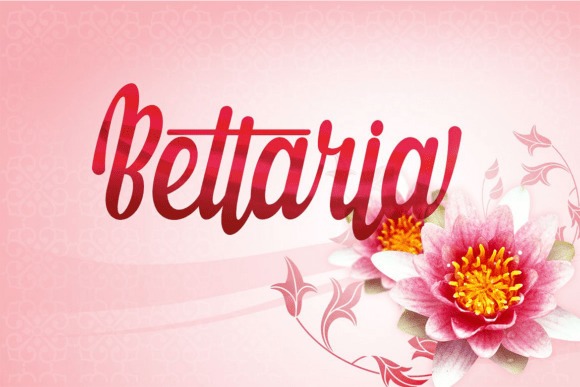
Capture the Essence of Playful Romance with Bettaria Font
I’ll never forget the summer I spent transforming my tiny apartment into a makeshift flower shop. I was working on a branding project for a local florist, and I was determined to get it just right. As I sipped lemonade and surrounded myself with blooms of every color, I realized that the perfect font was the key to bringing the whole design together. That’s when I stumbled upon the Bettaria font – a bouncy and cheerful script typeface that felt like a summer breeze on a warm day.
An Honest Review of Bettaria Font
- ✅ Rounded, thick strokes that give it a friendly and approachable feel
- ✅ Upbeat rhythm that’s perfect for capturing the essence of playful romance
- ✅ The way it radiates positivity and warmth, making your message feel sweet and endearing
- ✅ Its distinct personality shines when paired with bright, vibrant color palettes and botanical illustrations
- ⚠️ Some users might find that the font can be a bit tricky to read in smaller sizes, so it’s best to use it for headlines or titles
- ⚠️ While it’s a beautiful font, it might not be the best choice for very formal or professional designs, as it leans more towards a playful and whimsical feel
The Backstory of Bettaria Font
Bettaria font was designed with the intention of capturing the essence of playful romance. Its creator, a talented type designer, was inspired by the carefree feeling of summer days and the beauty of handwritten script. The result is a font that’s both elegant and whimsical, perfect for designs that require a touch of personality.
Q: What type of designs is Bettaria font best suited for?
A: Bettaria font is perfect for designs that require a playful and romantic touch, such as floral shop branding, bakery logos, and upbeat social media graphics.
Q: Is Bettaria font easy to read?
A: Bettaria font is generally easy to read, but it may be best suited for headlines or titles rather than body text. It’s also important to choose a font size that’s large enough to be legible.